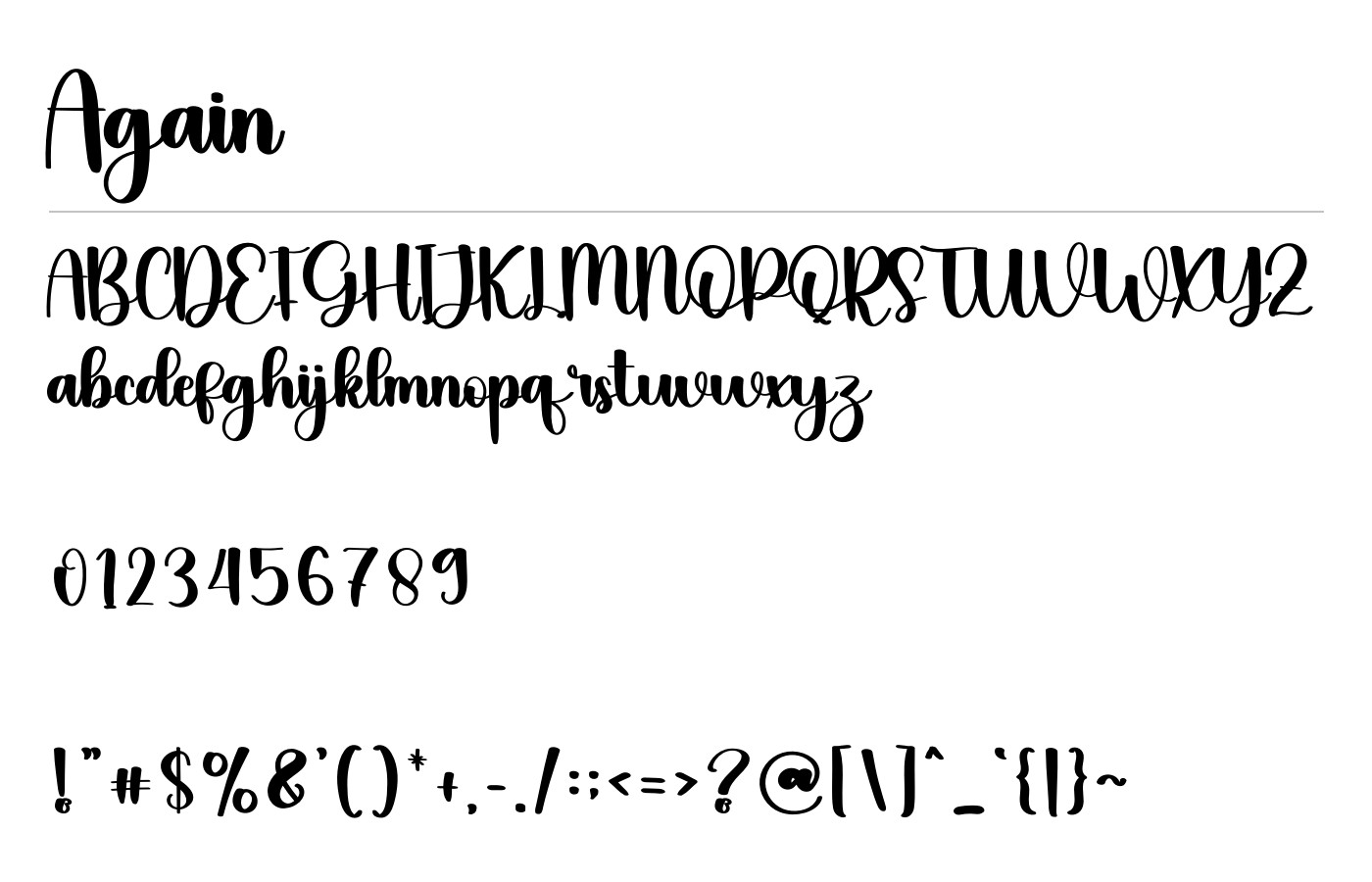
Again Font is a playful and lively script typeface featuring smooth, rounded strokes with moderate contrast and a friendly, hand-lettered feel. Its tall x-height and fluid letterforms, combined with unique uppercase styling and a mix of single and double-story characters, make it perfect for creative branding, invitations, and eye-catching headlines. This font brings a warm, approachable personality suited for casual, artistic, and youthful designs.
Again Font
About Again Font